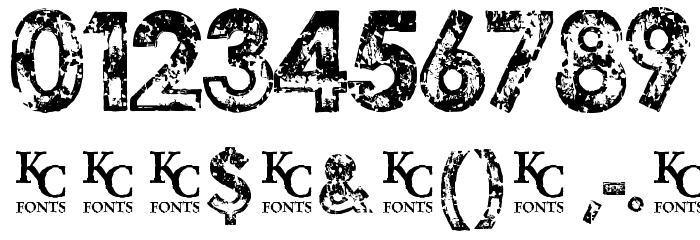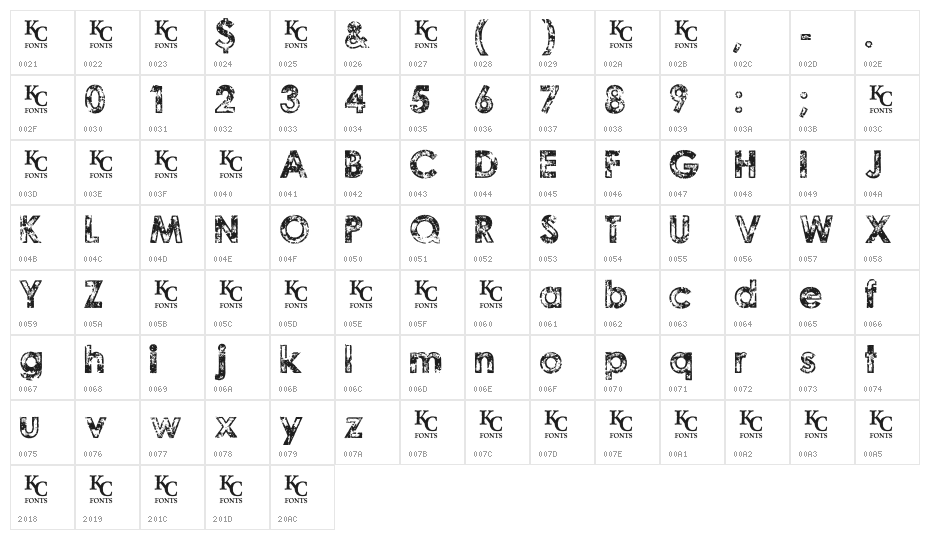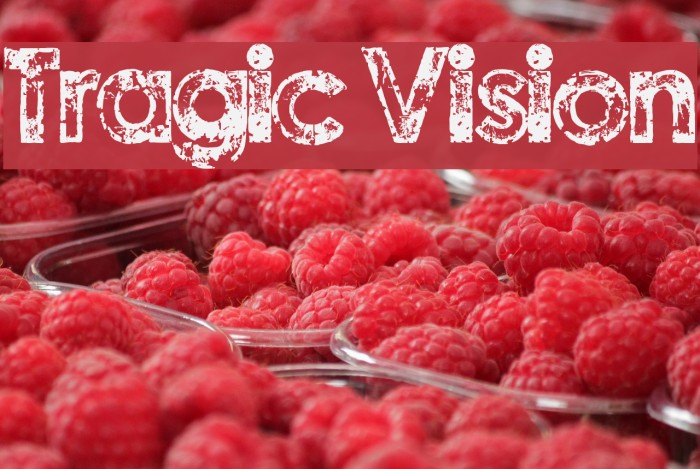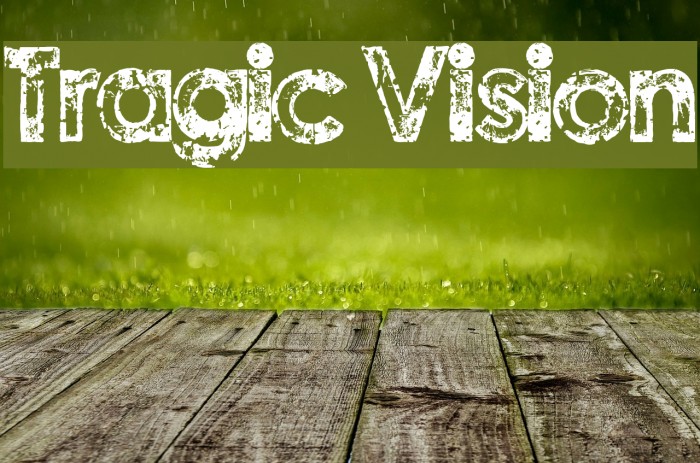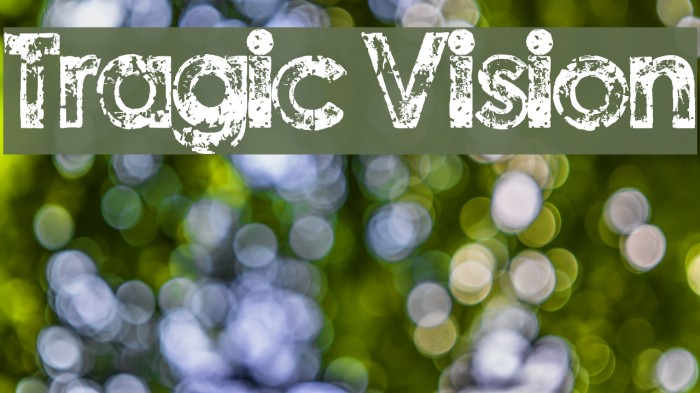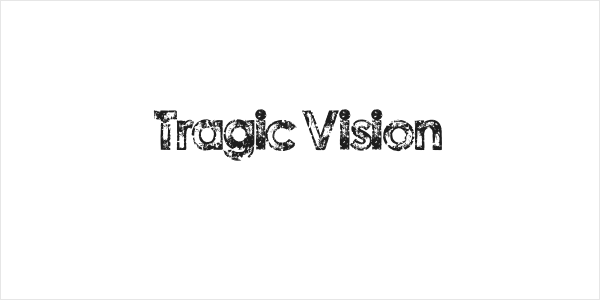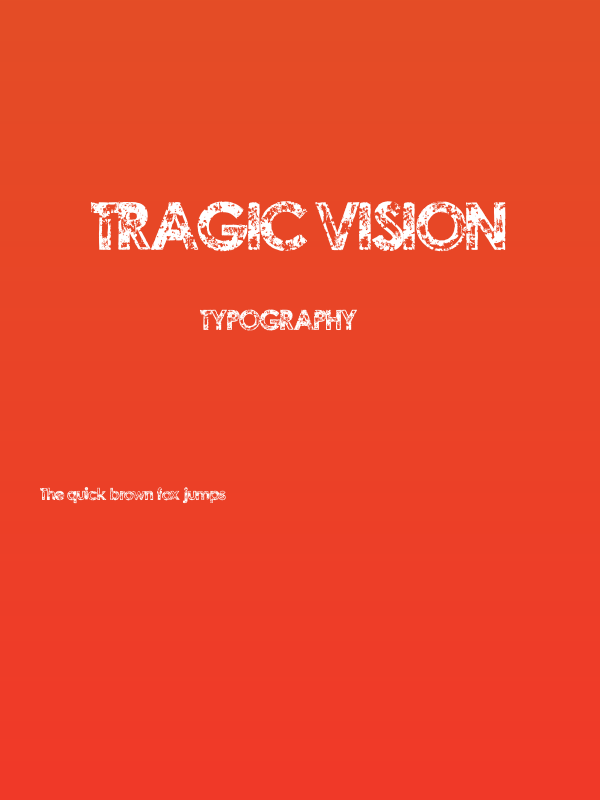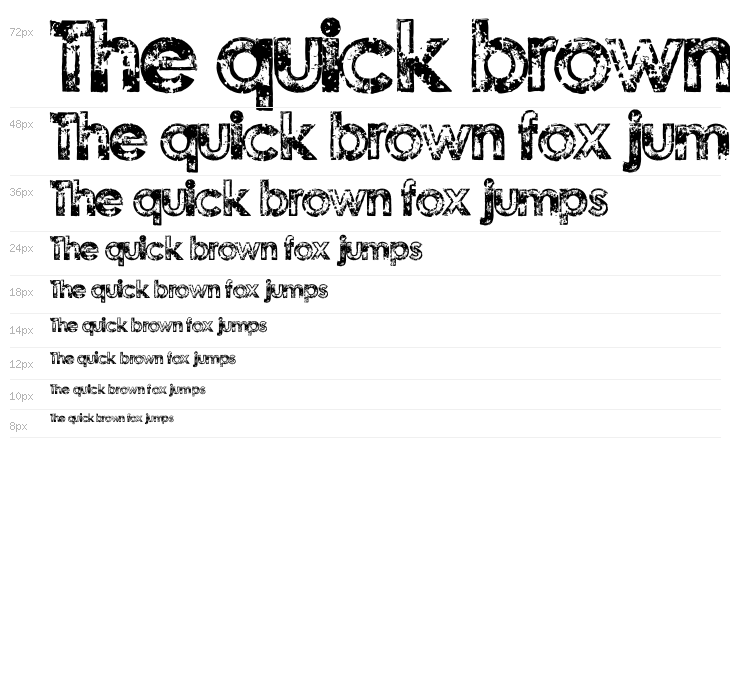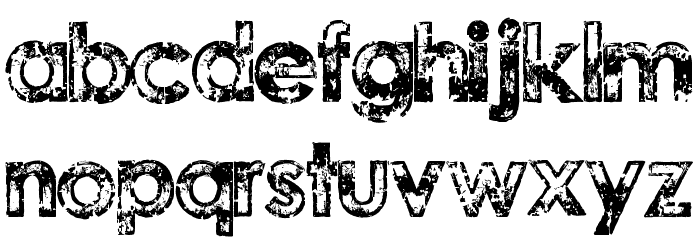
Tragic Vision Font
Tragic Vision Description
This font features a distressed, grunge style with a textured appearance that gives it a worn and weathered look. The characters are bold and impactful, with irregular edges and a rough finish that adds to its rugged aesthetic. The uppercase and lowercase letters maintain a consistent style, while the numbers and special characters follow the same distressed pattern. This font is ideal for projects that require a gritty, urban feel or a vintage, industrial vibe. Its unique texture makes it stand out, adding character and depth to any design.
| Overall Style | Grunge, Urban, Vintage |
| Proposed Projects | Ideal for album covers, posters, streetwear branding, or any design needing a gritty, urban aesthetic. |